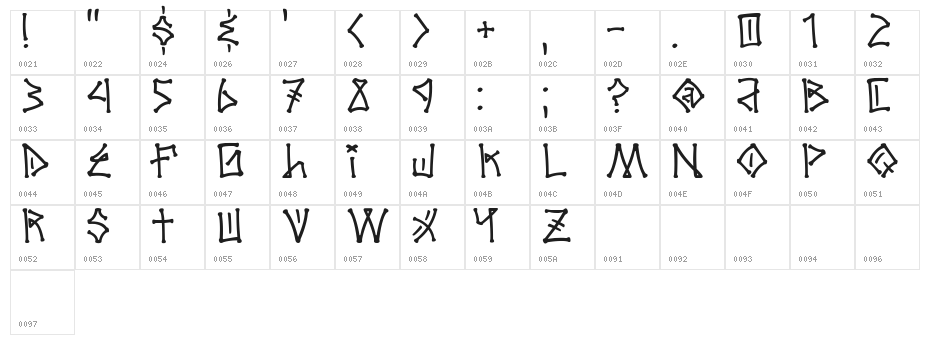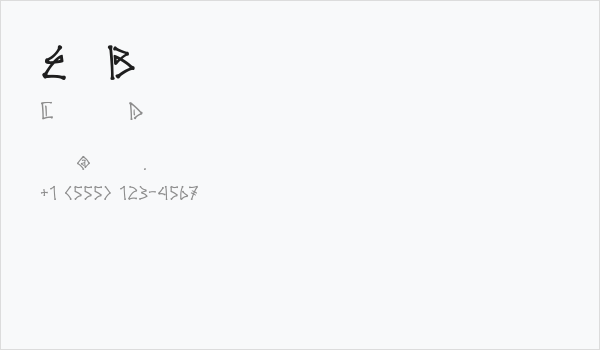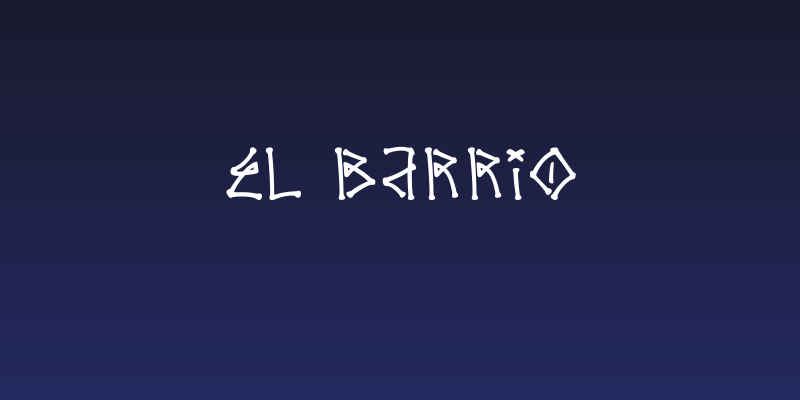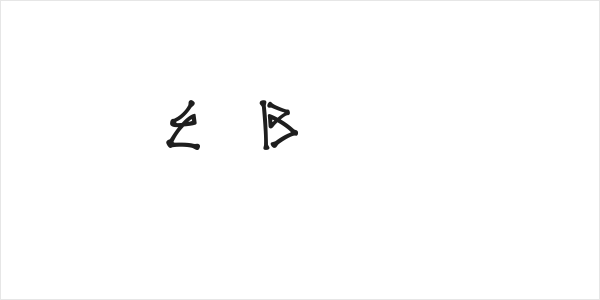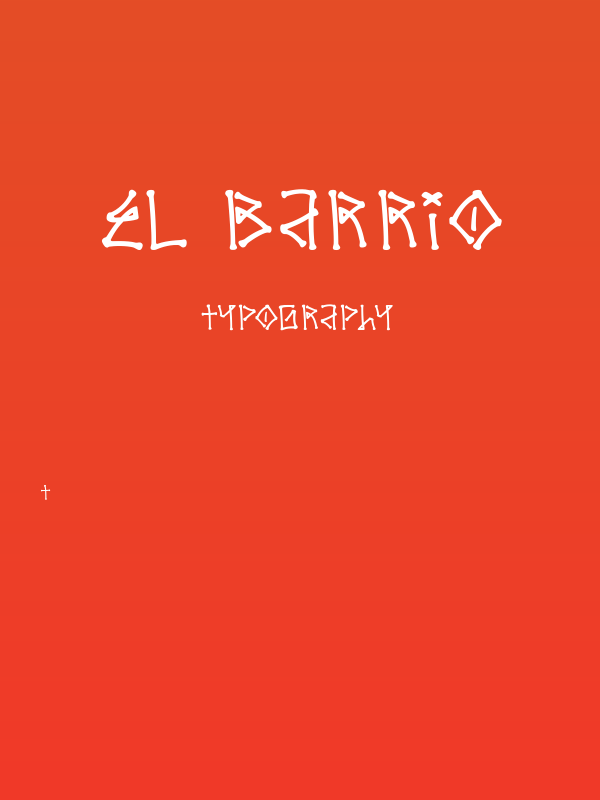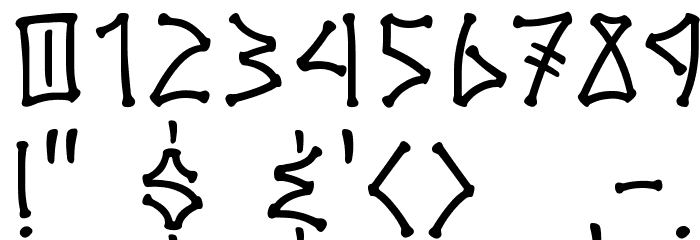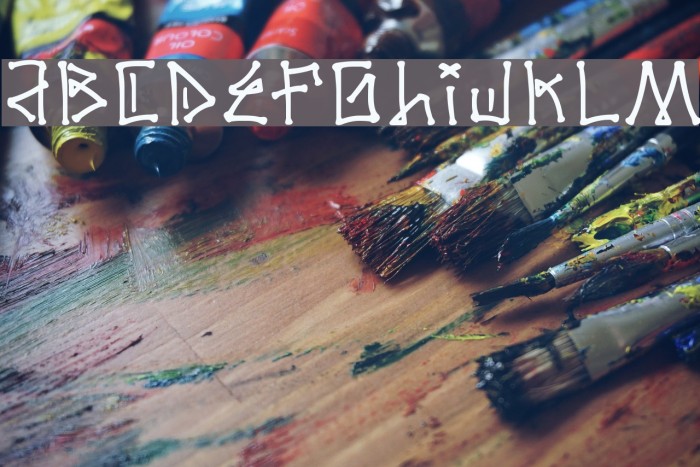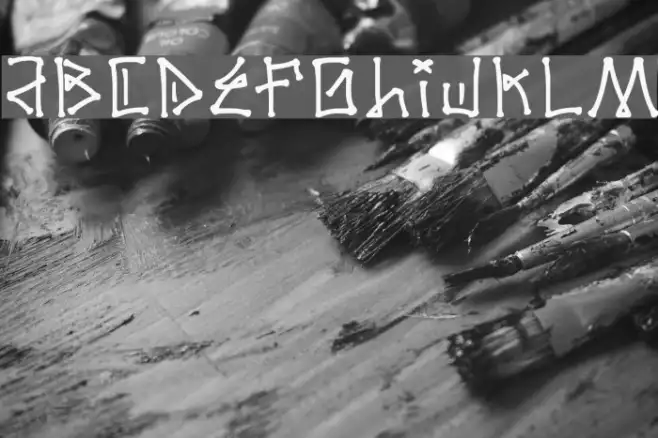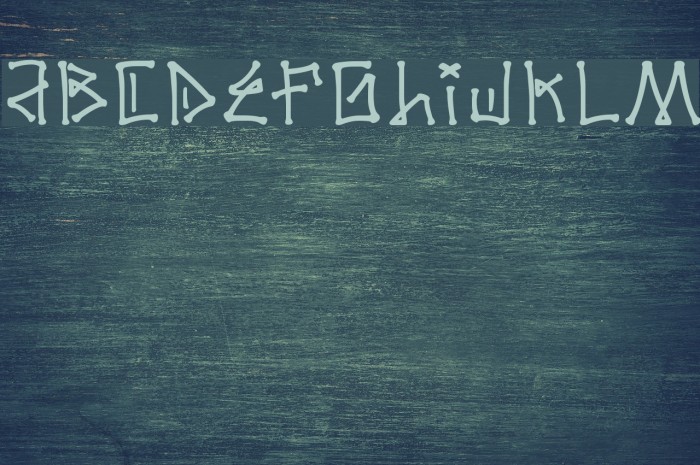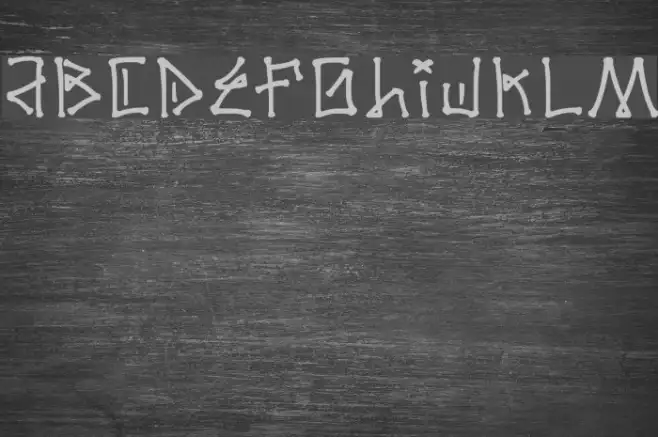
El Barrio Font
El Barrio Description
This font features a distinctive, hand-drawn style that evokes a sense of urban graffiti and street art. The characters are bold and angular, with a rough, uneven texture that adds to its edgy and rebellious aesthetic. Each letter is uniquely crafted, with varying line thicknesses and unexpected curves, giving the font a dynamic and energetic feel. The numbers and special characters maintain this theme, ensuring a cohesive look across all glyphs. This font is perfect for projects that aim to capture a raw, artistic vibe.
| Overall Style | Urban, Edgy, Artistic |
| Use Case | Logos, Posters, Album Covers |
| Proposed Projects | Ideal for street art designs, music album covers, urban-themed posters, and edgy branding projects. |